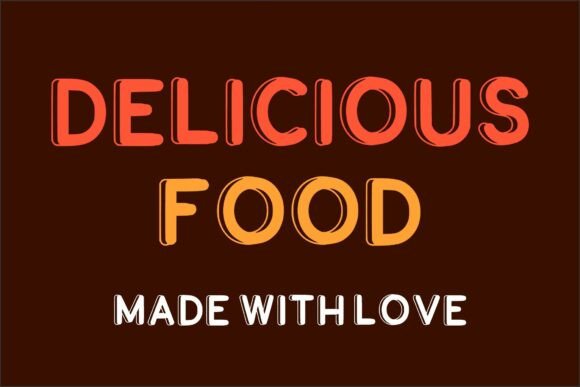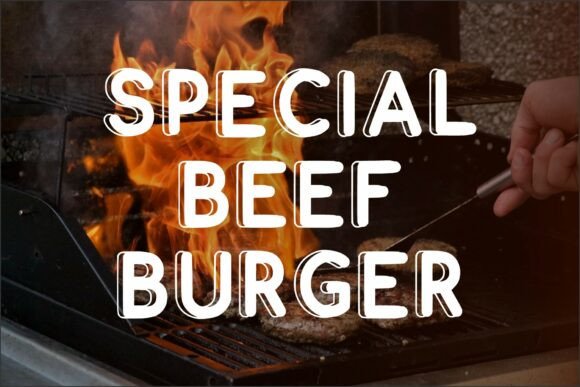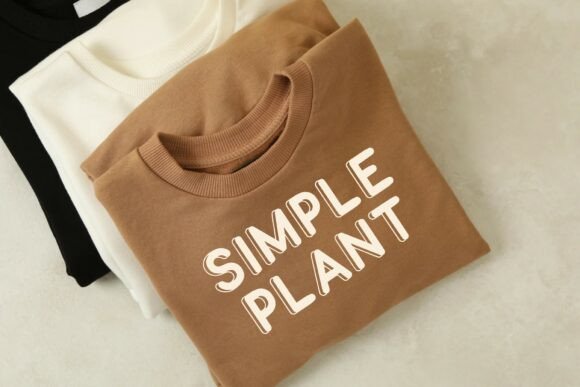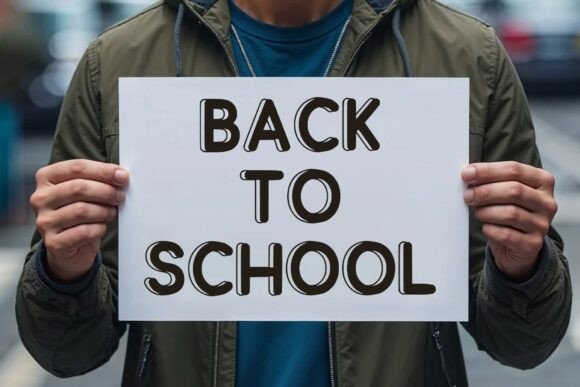
The Perfect Bite of Typography: Introducing Burgertwins Regular 1 Font
Remember the thrill of strolling into a retro diner, surrounded by the sizzling sounds of burgers on the grill and the warm glow of neon lights? It’s a sensory experience that sparks creativity and leaves a lasting impression. As designers, we’re always on the lookout for fonts that evoke the same energy and excitement. That’s where Burgertwins Regular 1 Font comes in – a bold and playful sans-serif display typeface that captures the essence of retro diner culture.
This versatile font is perfect for menus, food packaging, branding, or social media graphics, bringing a warm, inviting personality that instantly grabs attention. Whether you’re a seasoned designer or just starting out, Burgertwins Regular 1 Font is a valuable addition to your toolkit, offering a unique twist that sets your designs apart from the rest.
Burgertwins Regular 1 Font Key Features
- Font Family: Burgertwins Regular 1, a unique and playful font designed specifically for the Burgertwins brand.
- Unique Characteristics: Features a distinctive, rounded design with bold lines and a friendly, approachable feel, making it perfect for branding and marketing materials.
Burgertwins Regular 1 Font Review
Overall, I think the Burgertwins Regular 1 Font is a solid choice for casual use, but it may not be suitable for more formal projects.
- ✨ The font has a fun, playful feel that’s perfect for branding or marketing materials.
- ✨ The Burgertwins Regular 1 Font is highly legible, even at smaller font sizes.
- ✨ It’s a great choice for creating attention-grabbing headlines or titles.
- ⚠️ The font may not be suitable for formal or professional projects due to its playful nature.
- ⚠️ It’s not as versatile as some other fonts, and may not be suitable for use in complex or technical contexts.
- ⚠️ The font lacks a bold weight, which may limit its use in certain situations.
I think the Burgertwins Regular 1 Font is a great choice for projects where you want to add a bit of personality and whimsy. However, it’s not the best choice for projects that require a more formal or professional tone. With its playful feel and high legibility, it’s a great option for casual use, but it may not be suitable for more complex or technical projects.
The Burgertwins Regular 1 Font is a versatile font that can be used for various purposes, including:
- Social media graphics
- Print materials (business cards, flyers, etc.)